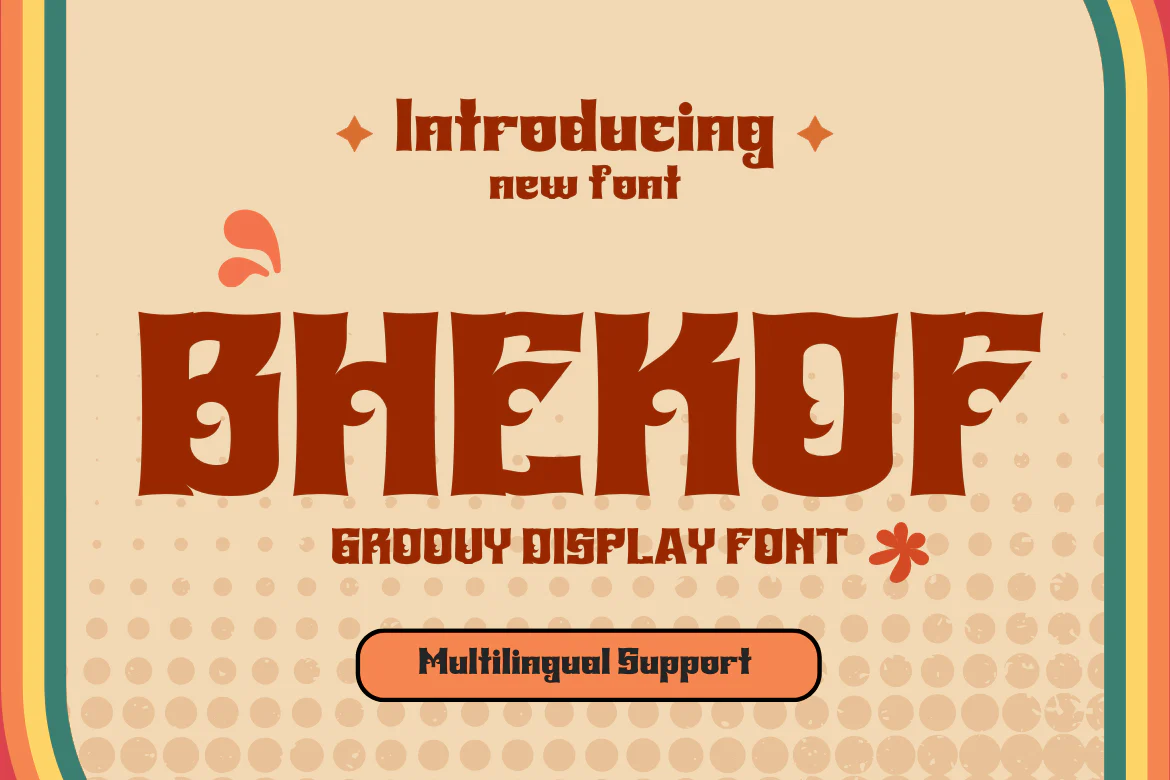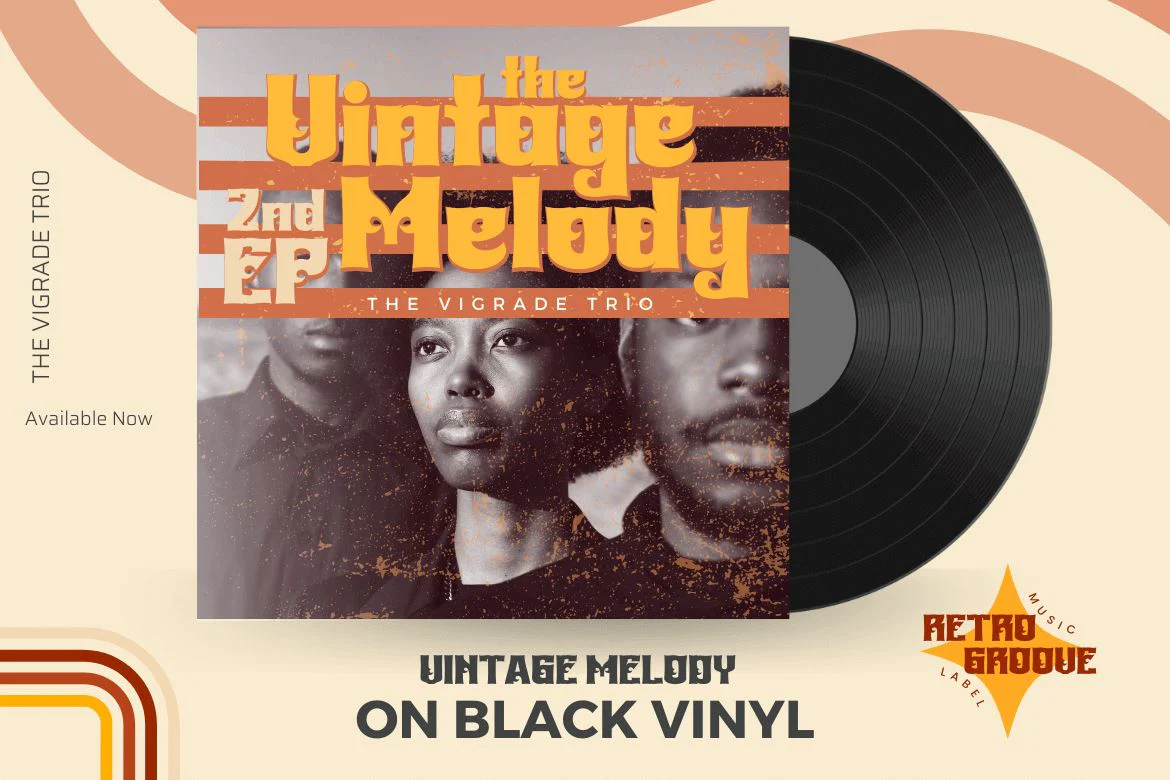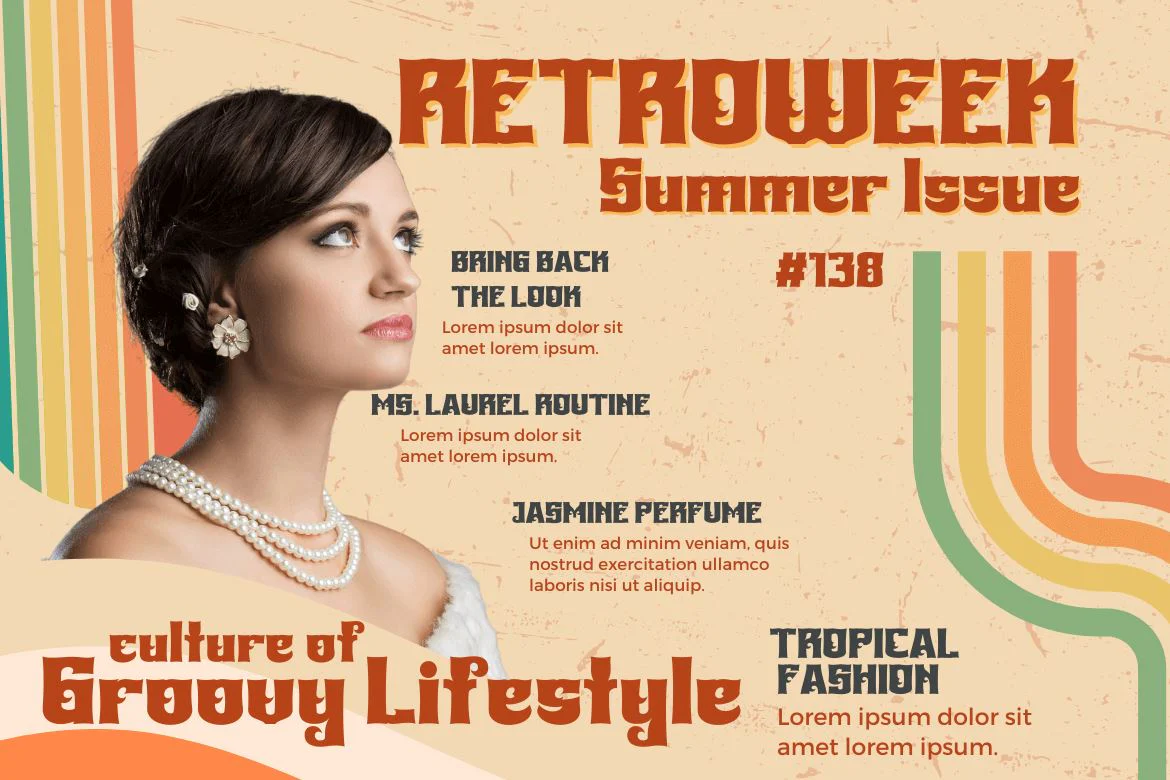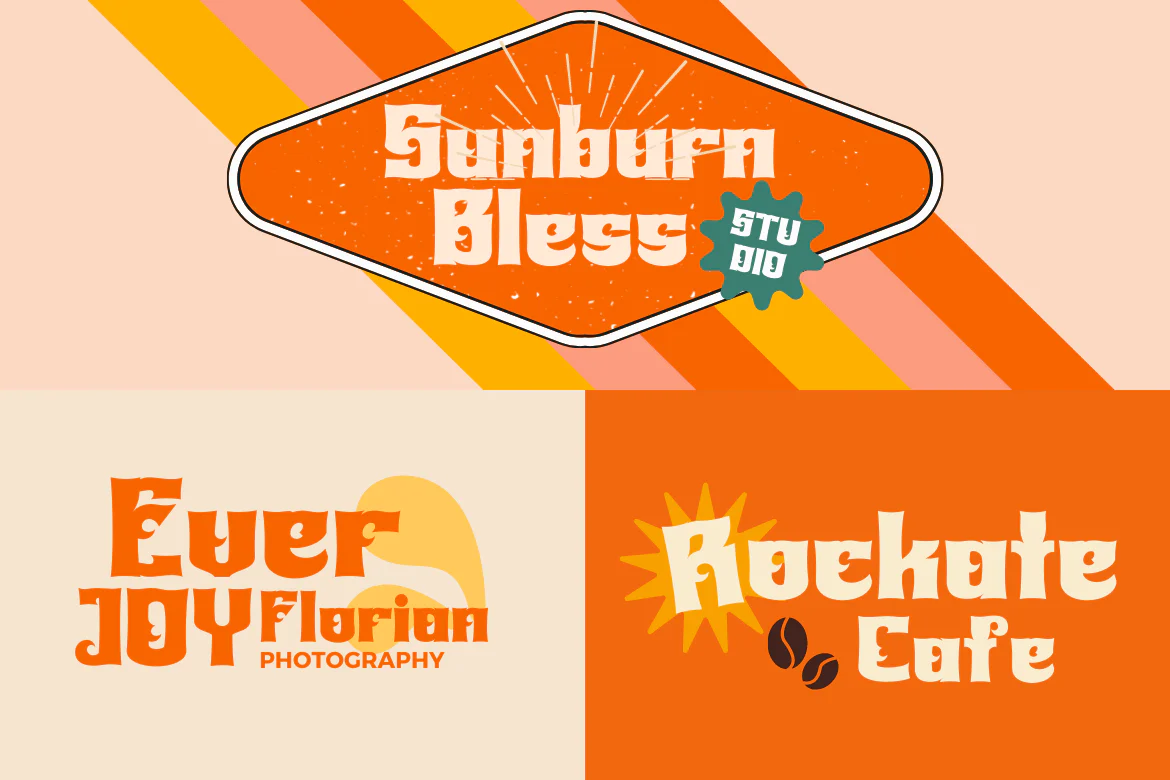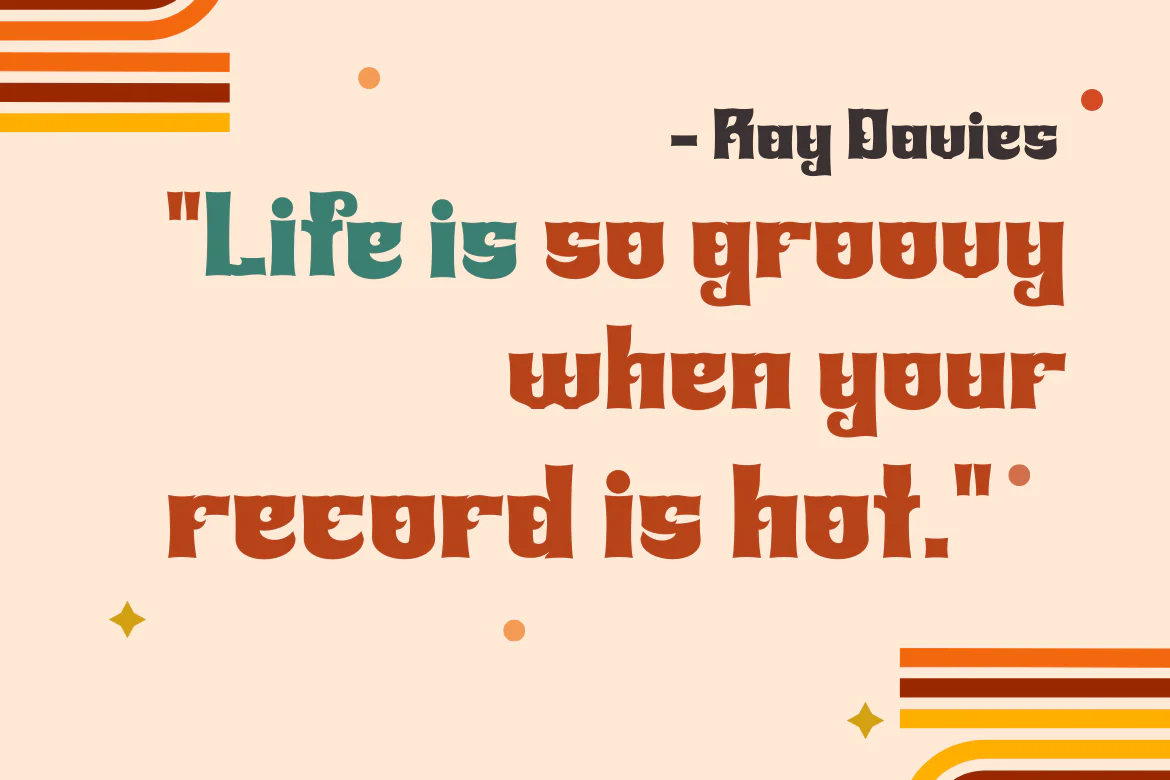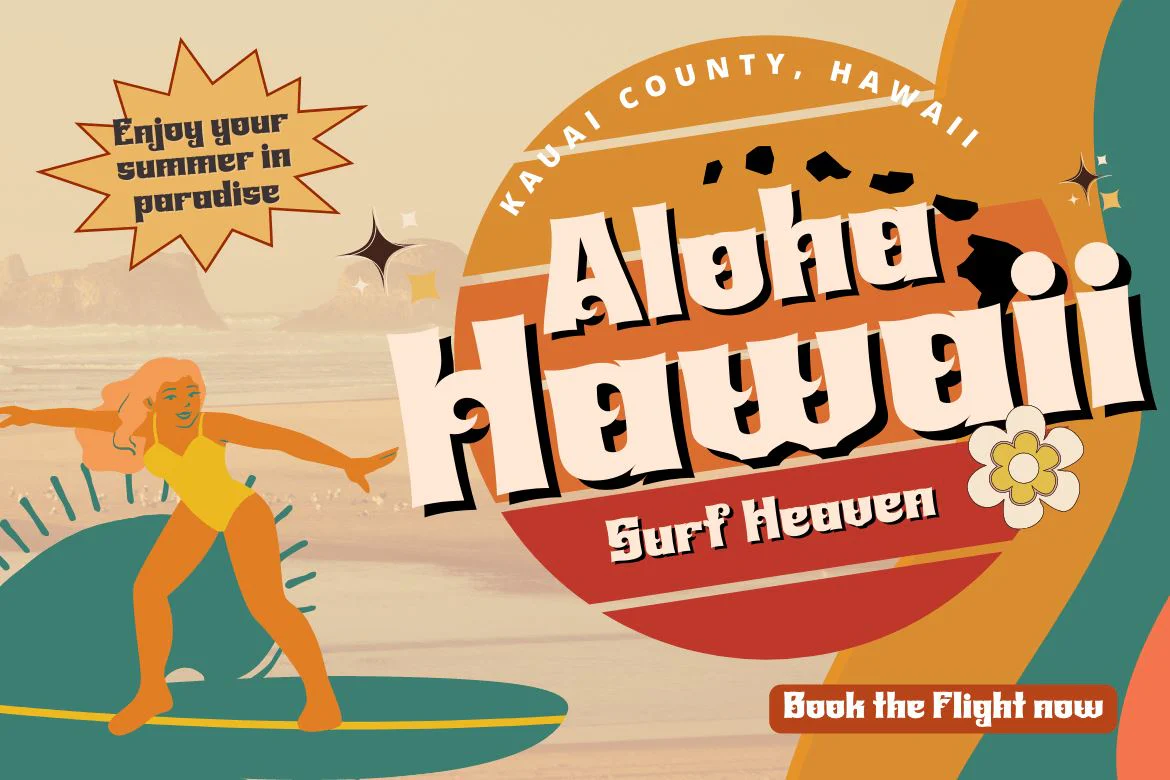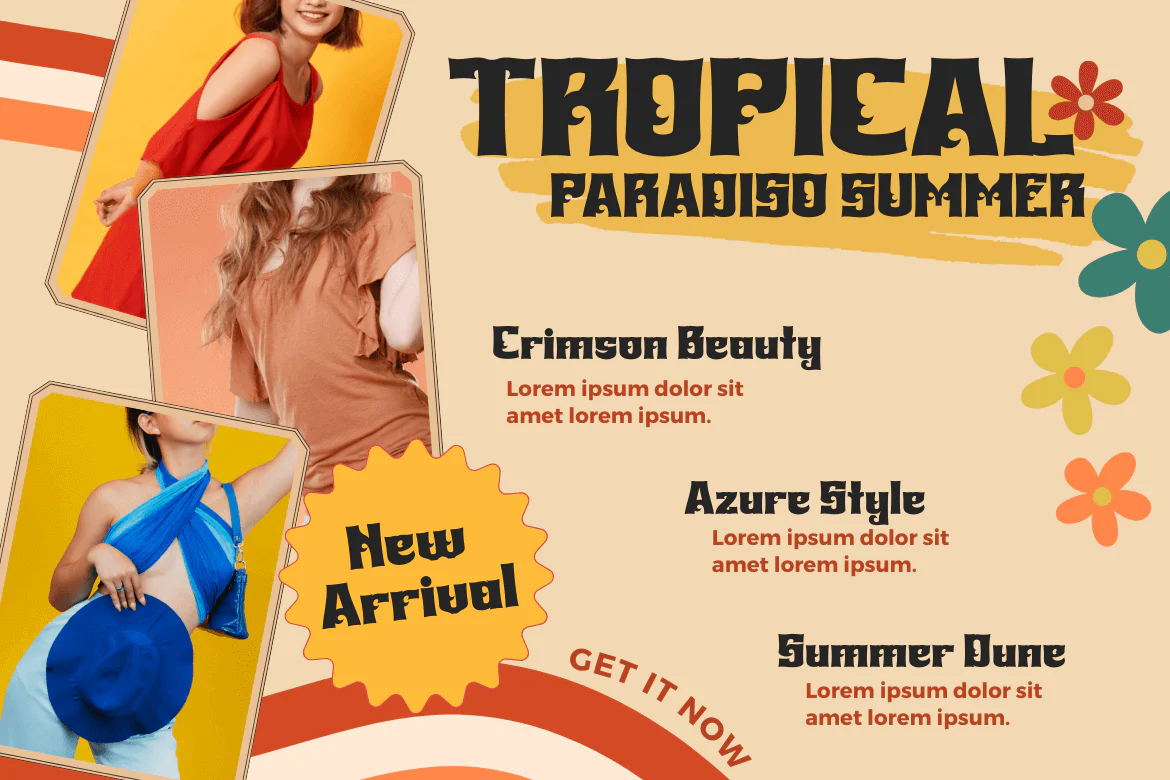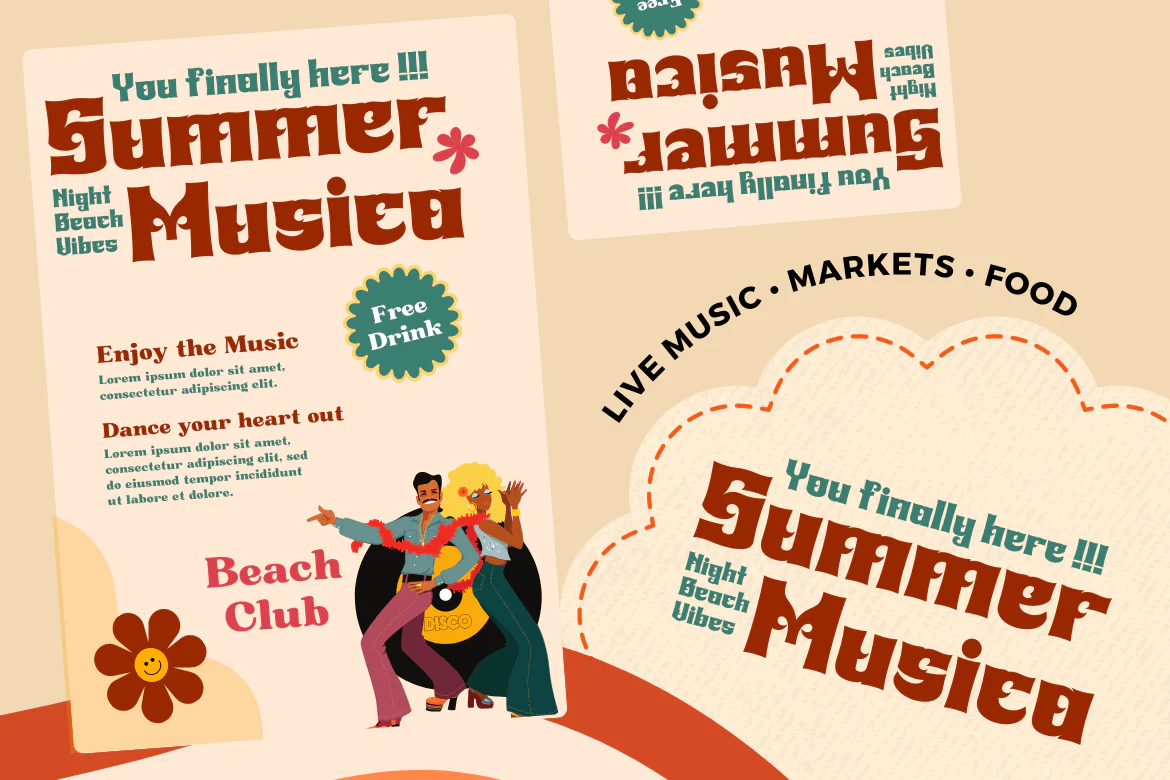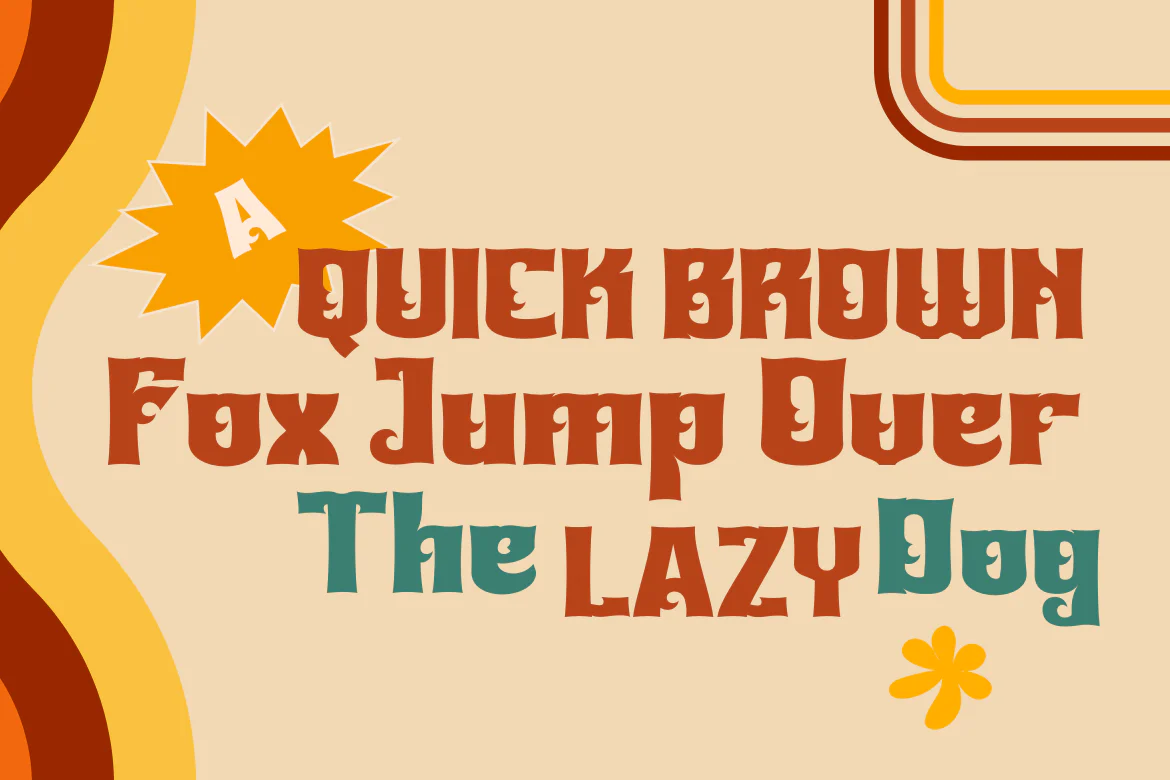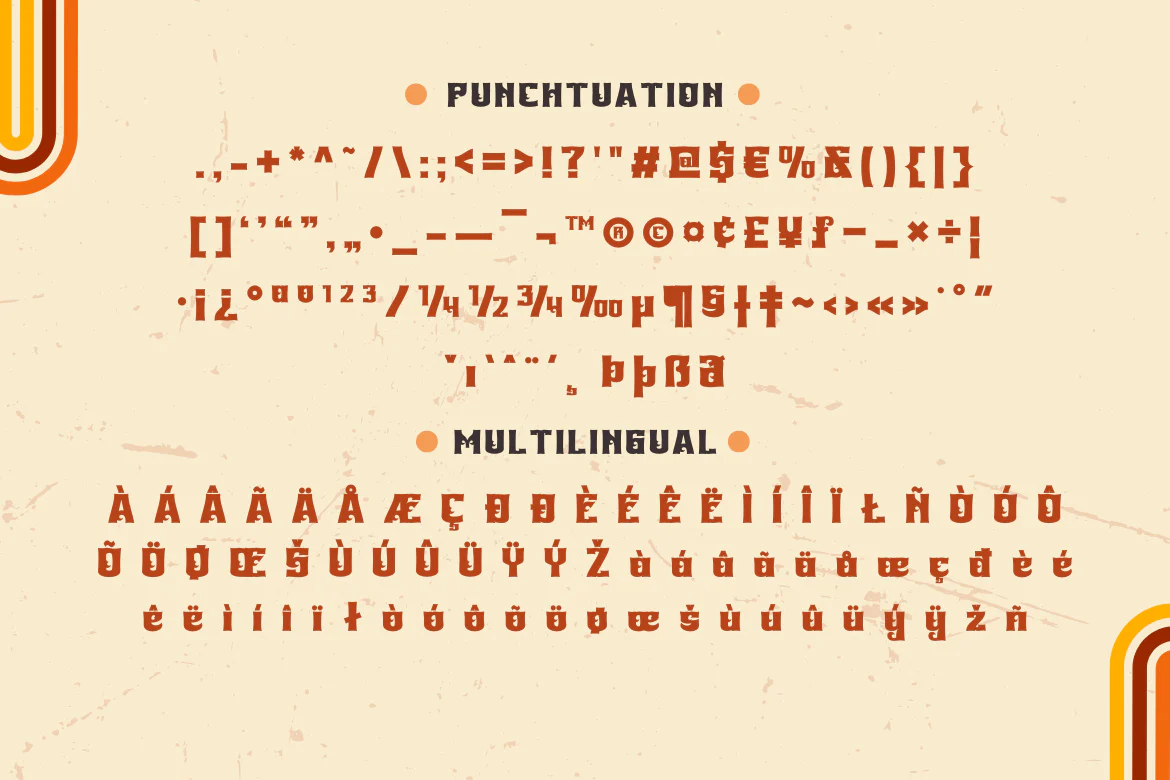
BHEKOF | Groovy Retro Font
Bhekof is typography with strong characteristics. Explore several other eras of art and combine them into a strong Bhekof characteristic. A great typeface for your next design project. Looking for a typestyle that has strong characteristics? Look no further than Bhekof! This awesome typeface has a vintage look that will make your designs stand out from the rest. With strong characteristics like this, it’s no wonder it makes your design very popular.